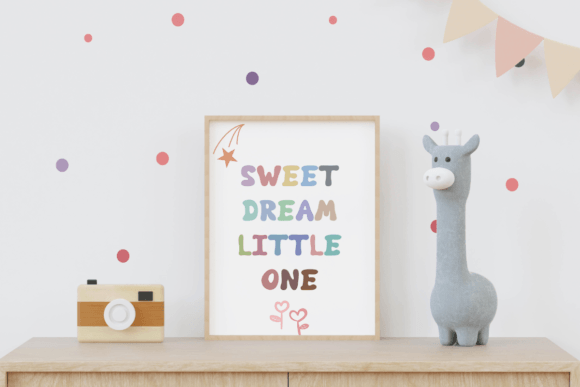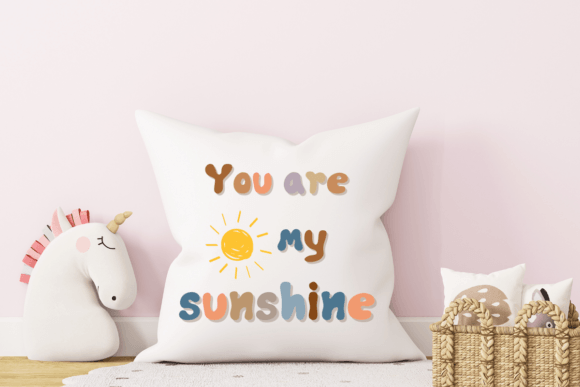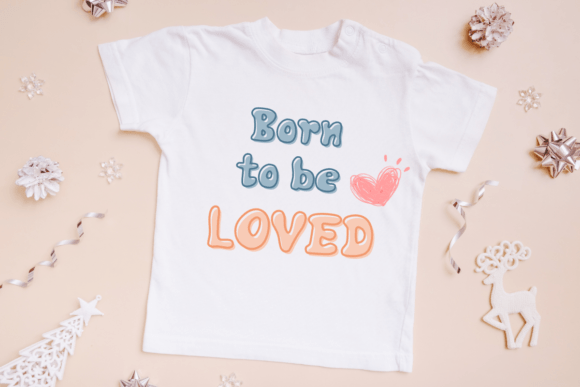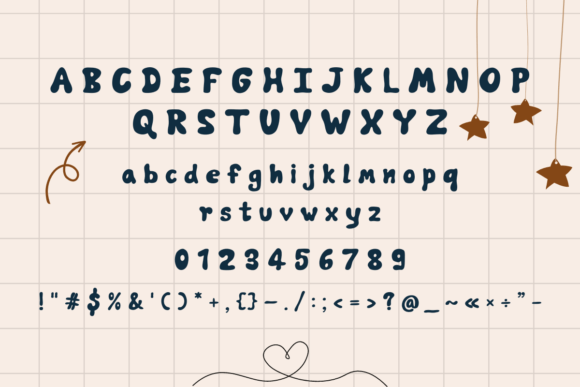
Bubbly Font: Adding a Touch of Whimsy to Your Designs
Bubbly is a delightful, fun, and cartoon-like font that’s perfect for adding a playful touch to your designs. Whether you’re a crafter, digital designer, presenter, or greeting card maker, Bubbly font is an excellent choice to make your work stand out. In this article, we’ll explore the features and benefits of Bubbly font, and how you can use it to elevate your creative projects.
What is Bubbly Font?
Bubbly font is a type of display font designed to resemble the look of bubbles. It’s characterized by its rounded, puffy, and soft edges, giving it a cute and endearing appearance. The font is often used for decorative purposes, adding a touch of whimsy and playfulness to various designs.
Features of Bubbly Font
- Cute and Fun: Bubbly font is designed to be visually appealing, making it perfect for projects that require a playful and cheerful tone.
- Cartoon-like: The font’s cartoon-like appearance makes it ideal for designs that require a youthful and energetic feel.
- Versatile: Bubbly font can be used for a wide range of projects, from crafting and digital designing to presentations and greeting card making.
- Easy to Read: Despite its playful appearance, Bubbly font is easy to read, making it suitable for both headlines and body text.
Benefits of Using Bubbly Font
Using Bubbly font in your designs offers several benefits, including:
- Emotional Connection: Bubbly font helps create an emotional connection with your audience, making your designs more relatable and engaging.
- Visual Appeal: The font’s unique appearance adds visual interest to your designs, making them more attention-grabbing and memorable.
- Flexibility: Bubbly font can be used in various contexts, from digital designs to print materials, making it a versatile addition to your font collection.
Using Bubbly Font for Crafting
Crafters love Bubbly font for its ability to add a personal touch to their projects. Here are some ideas for using Bubbly font in crafting:
- Journaling: Use Bubbly font to add a playful touch to your journal entries, making them more visually appealing.
- Card Making: Create personalized greeting cards with Bubbly font, adding a touch of whimsy to your messages.
- Scrapbooking: Use Bubbly font to add captions and titles to your scrapbook pages, making them more engaging and fun.
Using Bubbly Font for Digital Designing
Digital designers can also benefit from using Bubbly font in their work. Here are some ideas:
- Social Media Graphics: Use Bubbly font to create engaging social media graphics, such as Facebook posts, Instagram stories, and Twitter headers.
- Presentations: Add a playful touch to your presentations with Bubbly font, making them more visually appealing and engaging.
- Website Design: Use Bubbly font to create eye-catching headings and titles for your website, making it more memorable and fun.
Bubbly font is a versatile and fun font that’s perfect for designers, crafters, and anyone looking to add a playful touch to their work. With its cute and cartoon-like appearance, Bubbly font is sure to make your designs stand out. Whether you’re using it for crafting, digital designing, presentations, or greeting card making, Bubbly font is an excellent choice to elevate your creative projects.